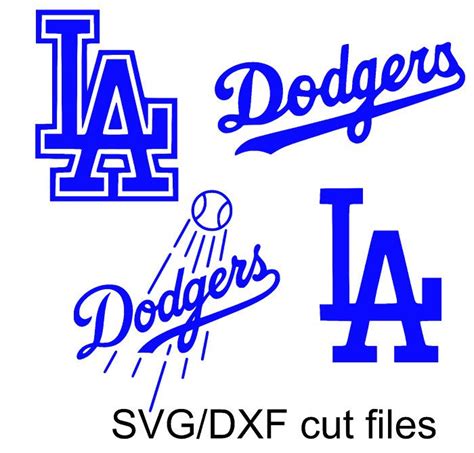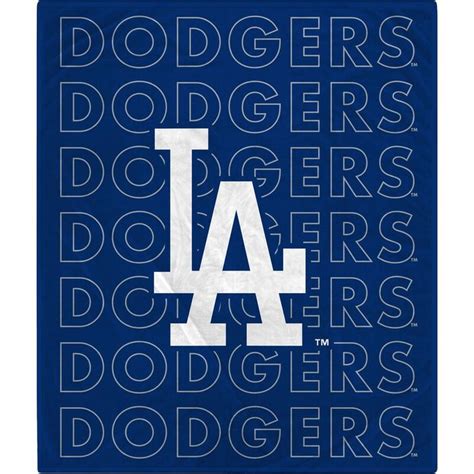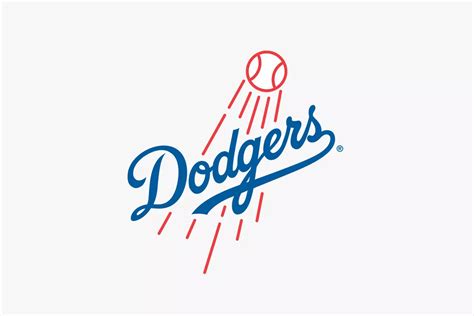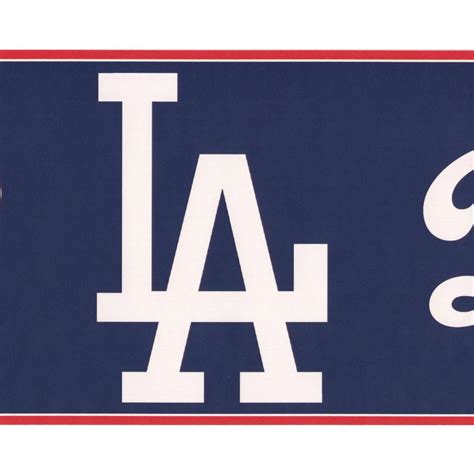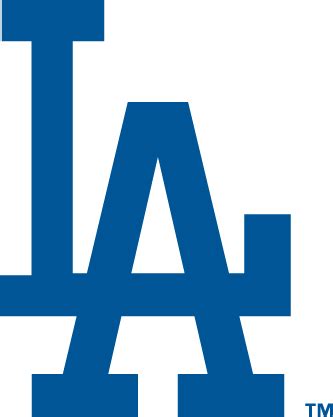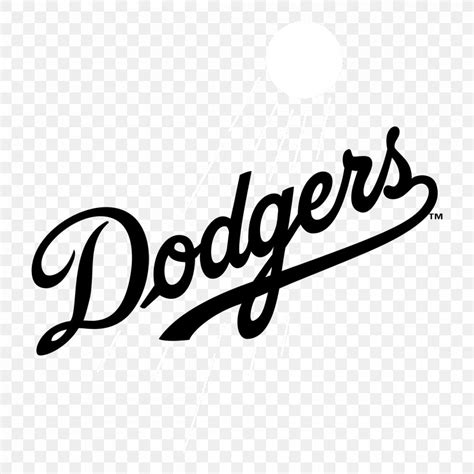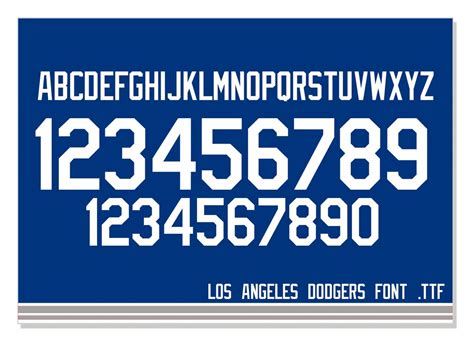
LA DODGERS FONT
The LA Dodgers Font is a distinctive and iconic design that has become synonymous with the Los Angeles Dodgers, one of Major League Baseball's most historic and beloved teams. This font is an essential element of the team's branding and visual identity, used across various media to represent the franchise's rich history and vibrant culture. The font's unique style and characteristics have become instantly recognizable to fans and enthusiasts alike.
The LA Dodgers Font is a custom-designed typeface that captures the essence of the team's legacy and spirit. It is characterized by its bold and modern aesthetic, with clean lines and a contemporary feel. The font's design incorporates subtle references to the team's iconic colors, blue and red, creating a visually appealing and cohesive look. This font is not just a simple letterform; it tells a story and evokes a sense of pride and tradition.
One of the key benefits of the LA Dodgers Font is its versatility. It is designed to be highly legible and adaptable, ensuring that it can be used in various applications, from large-scale signage and merchandise to digital interfaces and print materials. This versatility allows the font to maintain its impact and recognition across different mediums, making it a valuable asset for the team's marketing and branding efforts.
The font's design also incorporates a touch of sporting heritage and team spirit. It subtly hints at the team's rich history, paying homage to the legendary players and moments that have defined the Dodgers' success. This attention to detail adds depth and meaning to the font, making it more than just a visual element but a powerful representation of the team's identity.